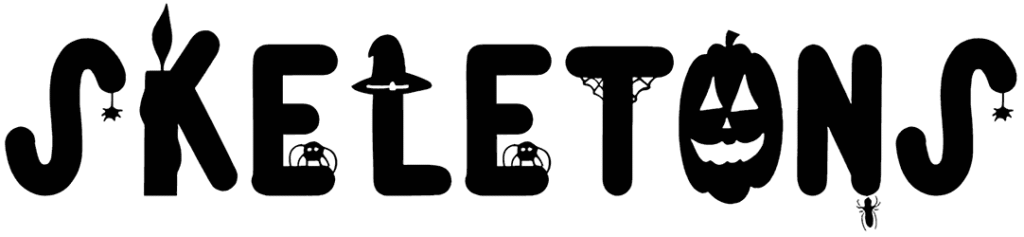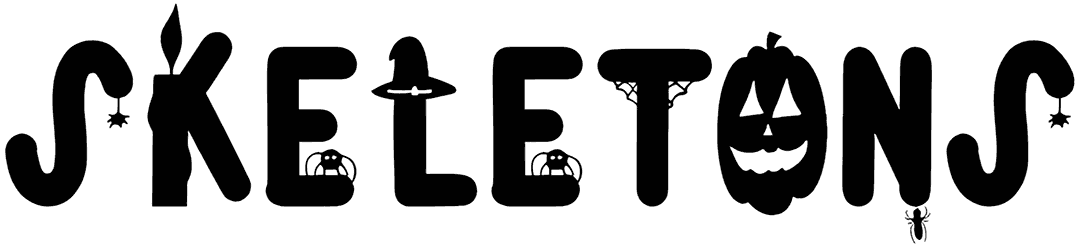
Skeletons Font
Skeletons font is the scariest yet most atmospheric Halloween font that will help you surprise your audience. This font uses spider webs and skulls to recreate the mood of this scary night in your projects and can give a new color to your invitation, poster, or packaging.
So don’t limit yourself and think that the lack of lowercase letters will restrict your freedom. Just put both styles of capital letters together, and you will be amazed at the result.